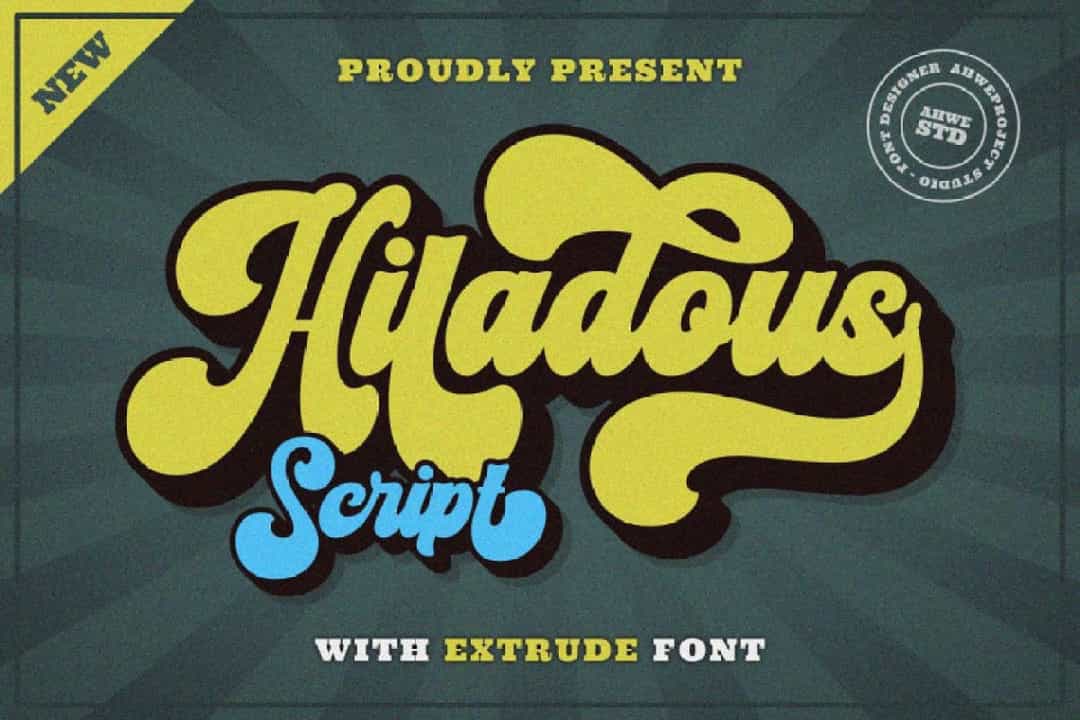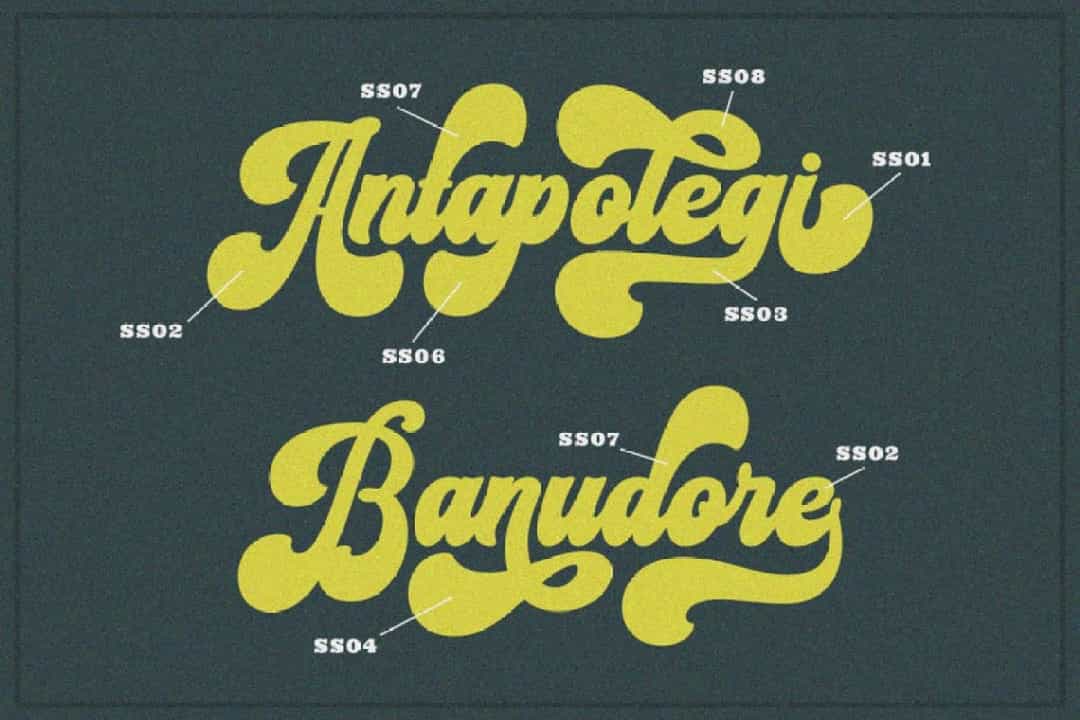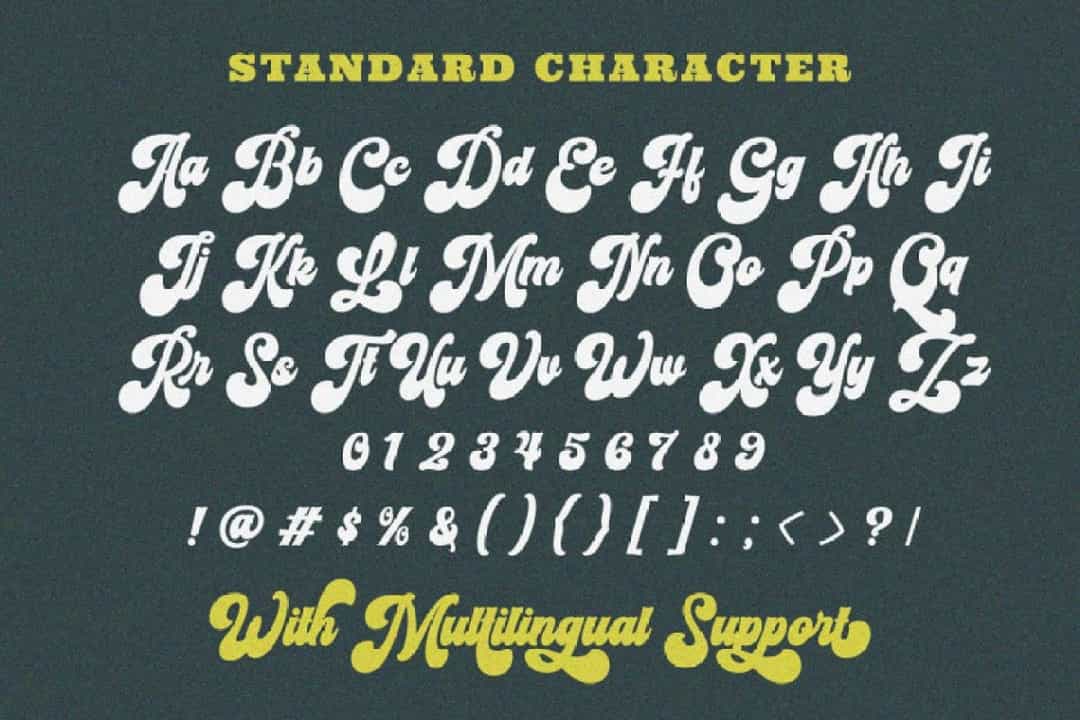
Discover Hiladous Font, part of the Retro Script collection—a versatile and unique font perfect for adding a personal touch to your projects. Download it for free and enjoy crafting designs with style, from invitations to social media posts. This font is available exclusively for personal use, giving you the freedom to create without limits. Unlock your creativity with Hiladous Font today!
Hiladous is a handwritten retro-styled script font. Described as powerful dynamic confident and nostalgic, this font adds great character and nostalgia to your work. Furthermore, this font has been PUA encoded so you can access all characters and symbols easily!